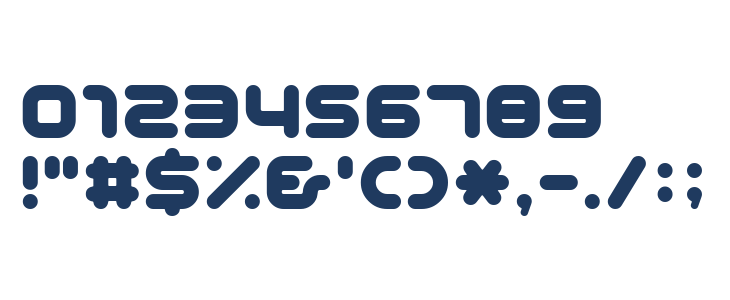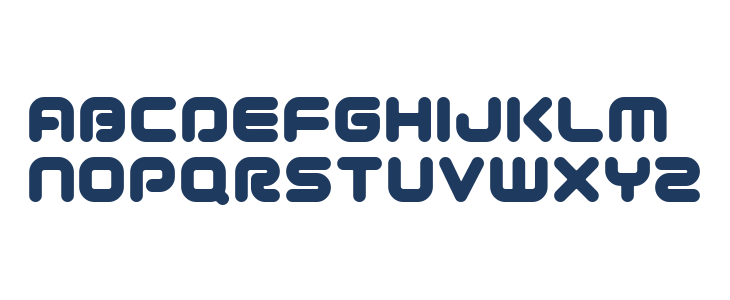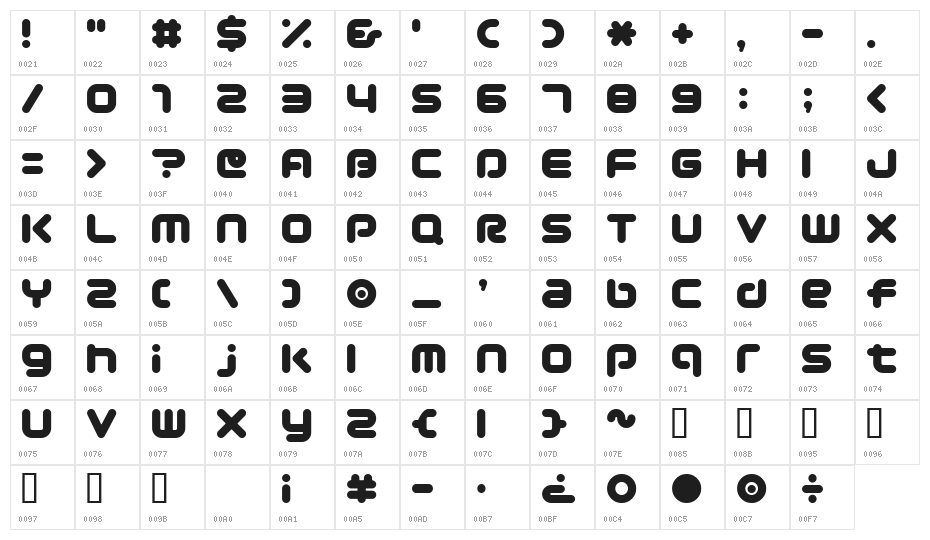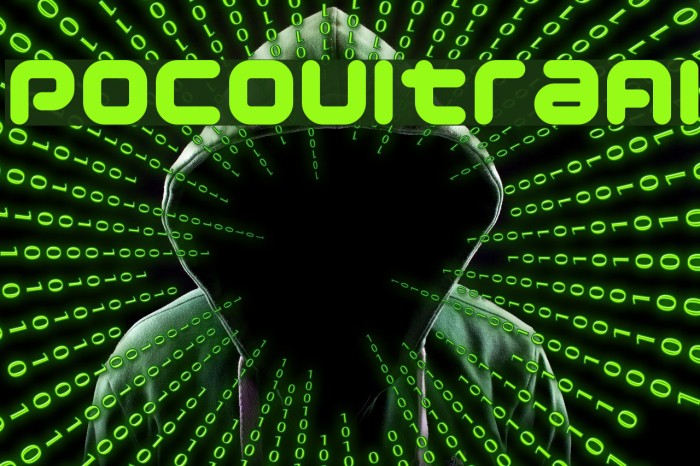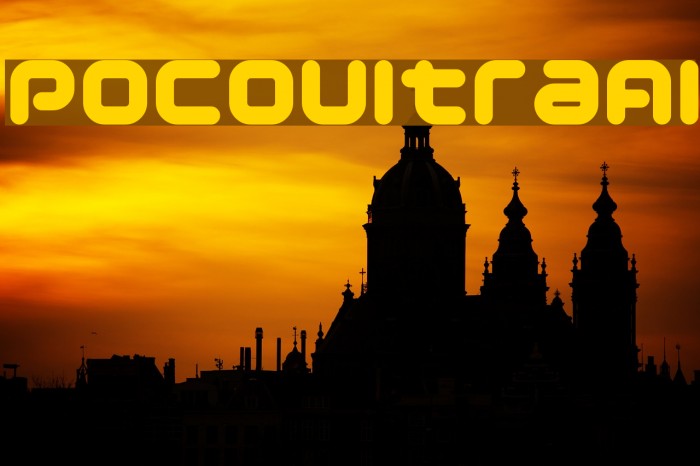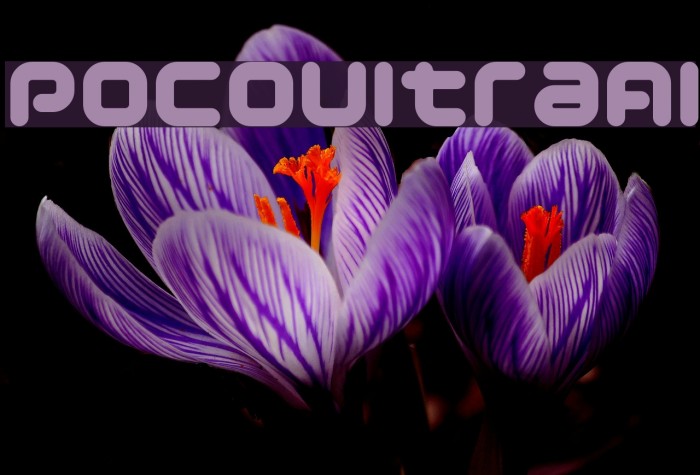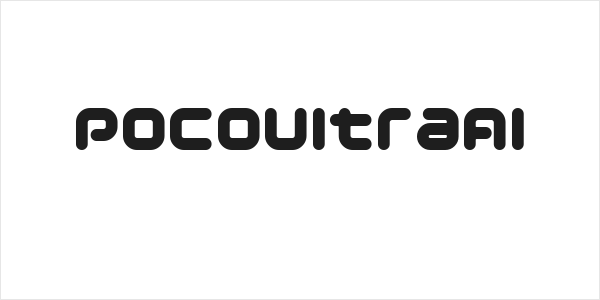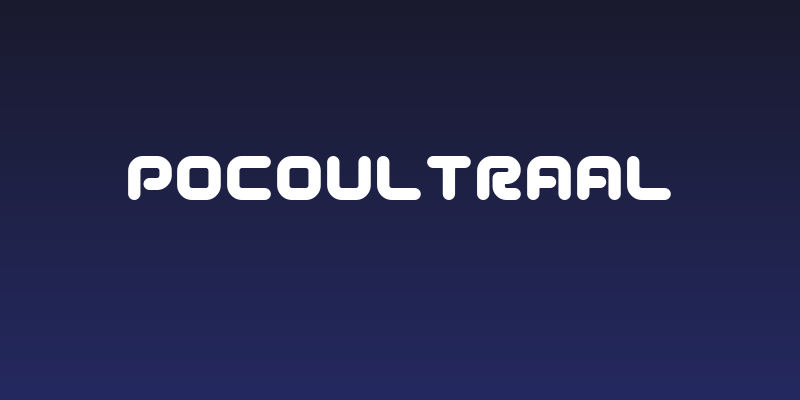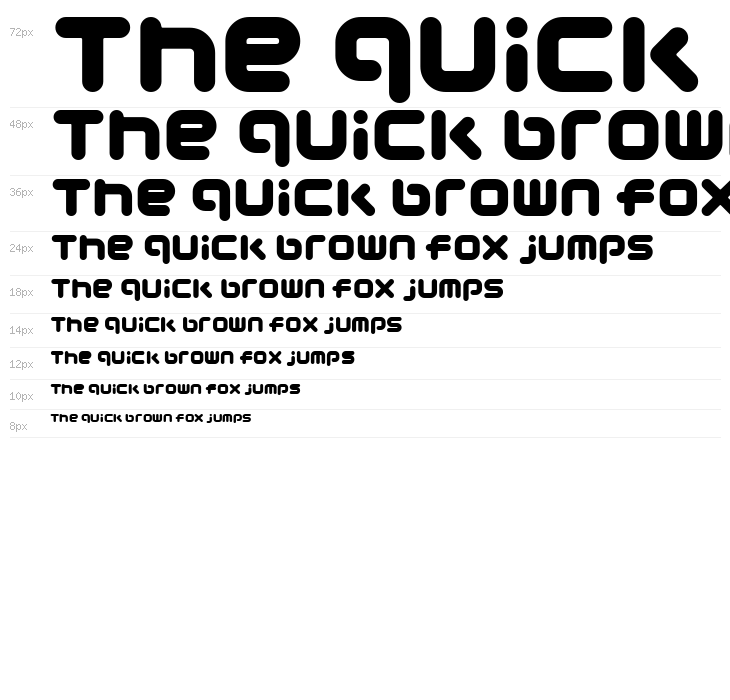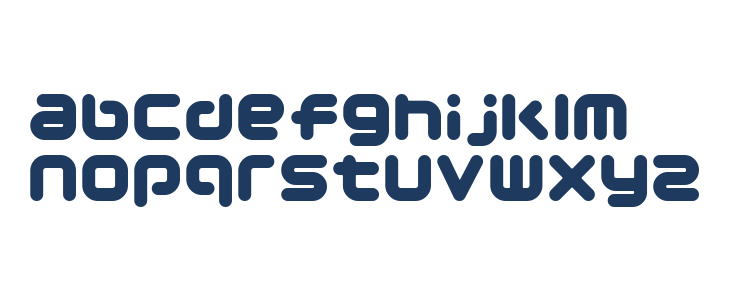
PocoUltraAl Font
PocoUltraAl Description
This font features a bold, rounded style with a modern and futuristic appeal. The characters are uniformly thick, giving a strong and cohesive appearance. The rounded edges and consistent stroke width create a friendly and approachable look, while maintaining a sense of modernity. The font's geometric structure is evident in its symmetrical and balanced letterforms, making it suitable for a variety of design applications. The numbers and special characters follow the same design principles, ensuring a harmonious overall appearance.
| Proposed Projects | Ideal for tech branding, futuristic posters, video game titles, and digital interfaces. |